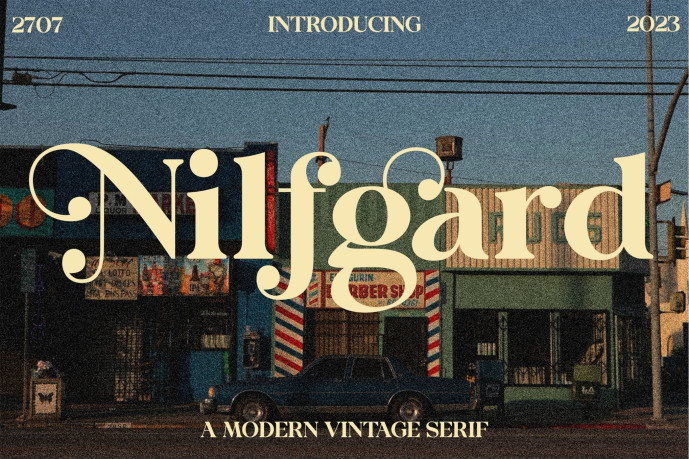
Nilfgard Font
Designer: Sansakerta
Nilfgard Font is a special modern stylistic style font. Made with accurate accuracy with beautiful curves. With alternative characters and ligatures that make your work very special. It is perfect for branding design, logos, greeting cards, title packaging. and other designs. Immediately use our fonts to make your work even more amazing.